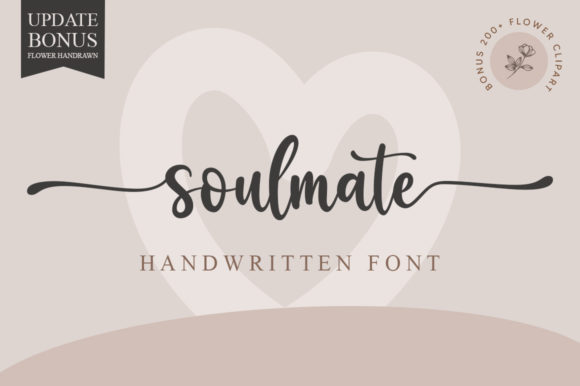
Introducing Soulmate, the stunning and sophisticated handwritten font created by Graphix Line Studio. Soulmate is the perfect font for anyone looking to add a touch of elegance and sophistication to their designs. With its stylish curves and elegant design, Soulmate is the perfect choice for wedding invitations, thank you cards, quotes, greeting cards, logos, business cards, and more.
What sets Soulmate apart from other fonts is its attention to detail. This font is PUA encoded, which means you can access all of the glyphs and swashes with ease. Soulmate is not only beautiful but also incredibly versatile. It is perfect for creating unique and eye-catching designs that will make your business stand out.
Soulmate is the perfect font for those who are looking to create designs that are both beautiful and functional. Whether you are creating a logo for your business or designing wedding invitations for a friend, Soulmate is the perfect font to get the job done.
This font is not only beautiful but also easy to use. It is compatible with all major design software and can be used on both Mac and PC. Soulmate is also available in a variety of weights and styles, making it easy to find the perfect fit for your project.
In conclusion, Soulmate is a stunning and sophisticated font that is perfect for anyone looking to add a touch of elegance and sophistication to their designs. Its attention to detail and versatility make it the perfect choice for a wide range of design projects. Try Soulmate today and elevate your designs to the next level!